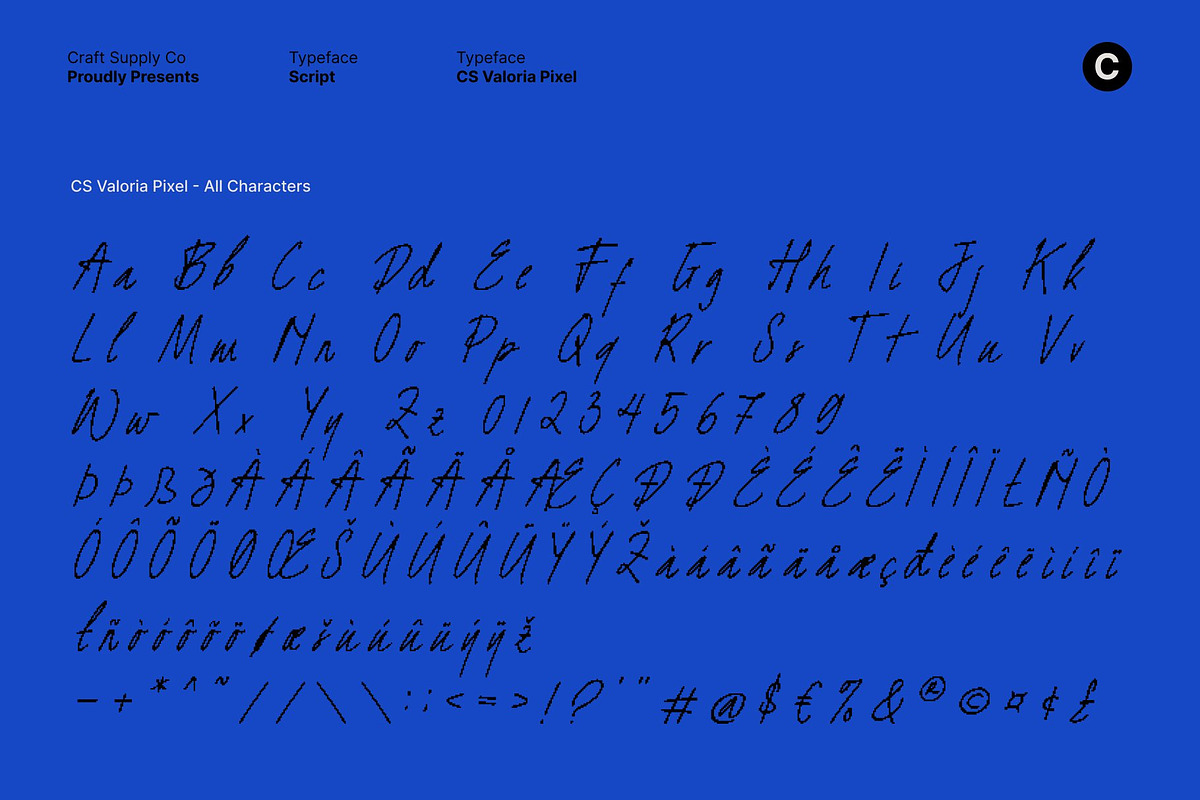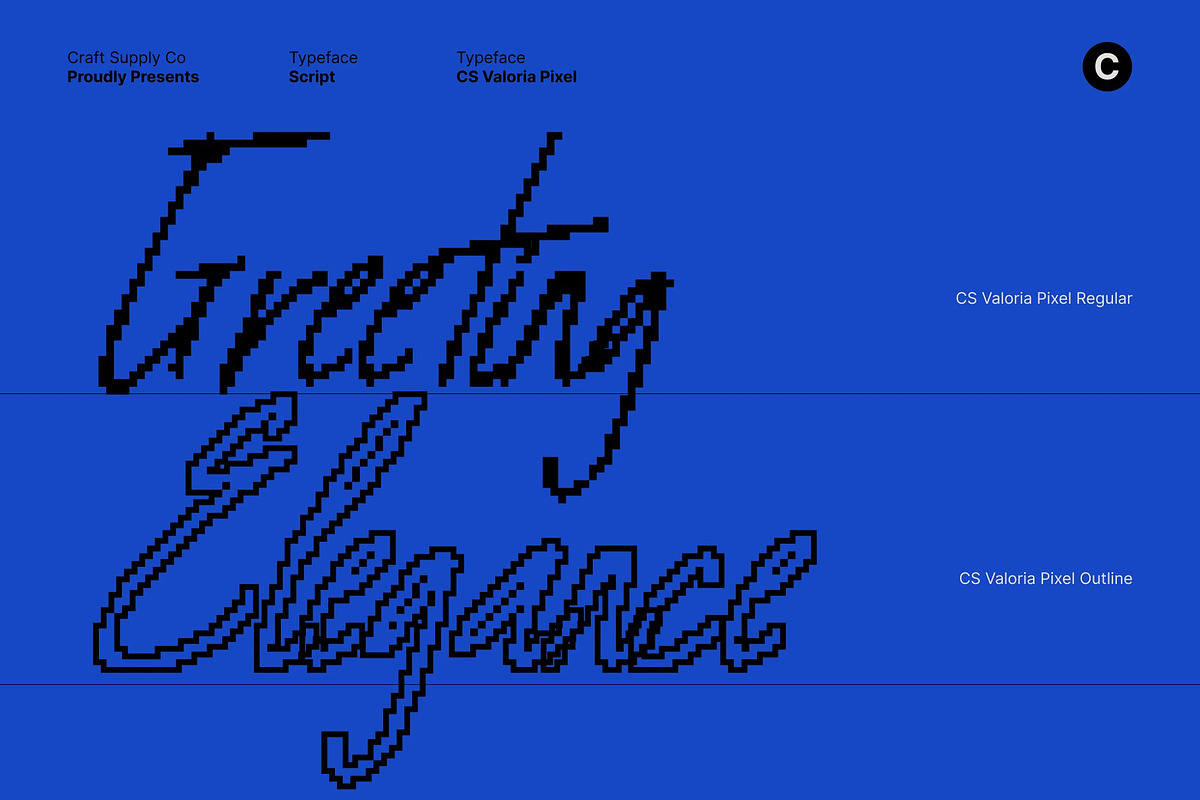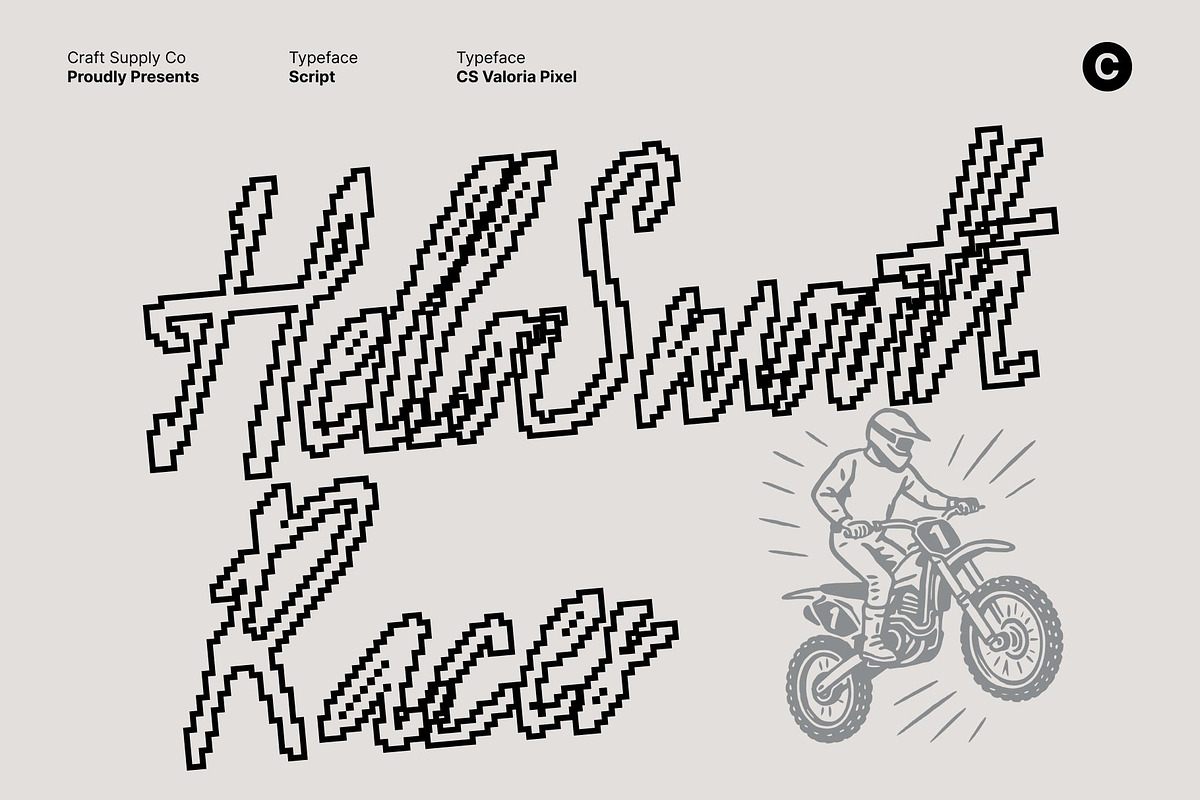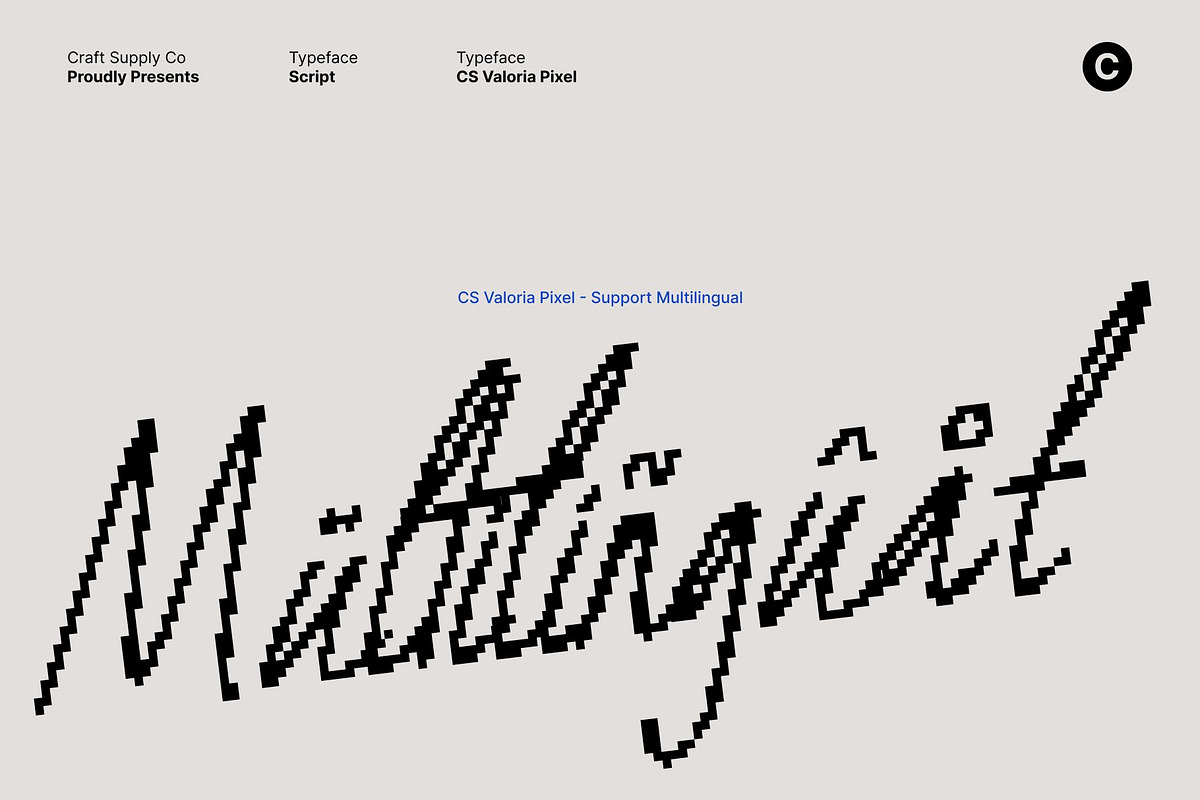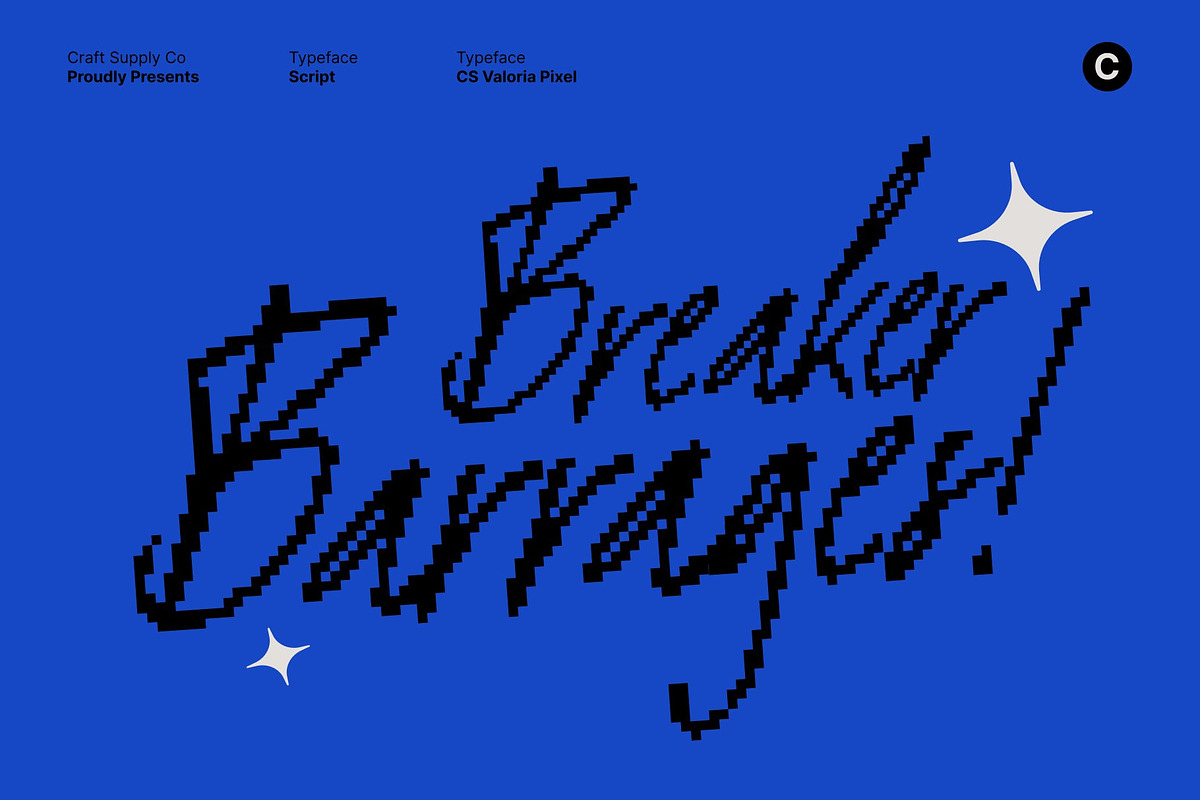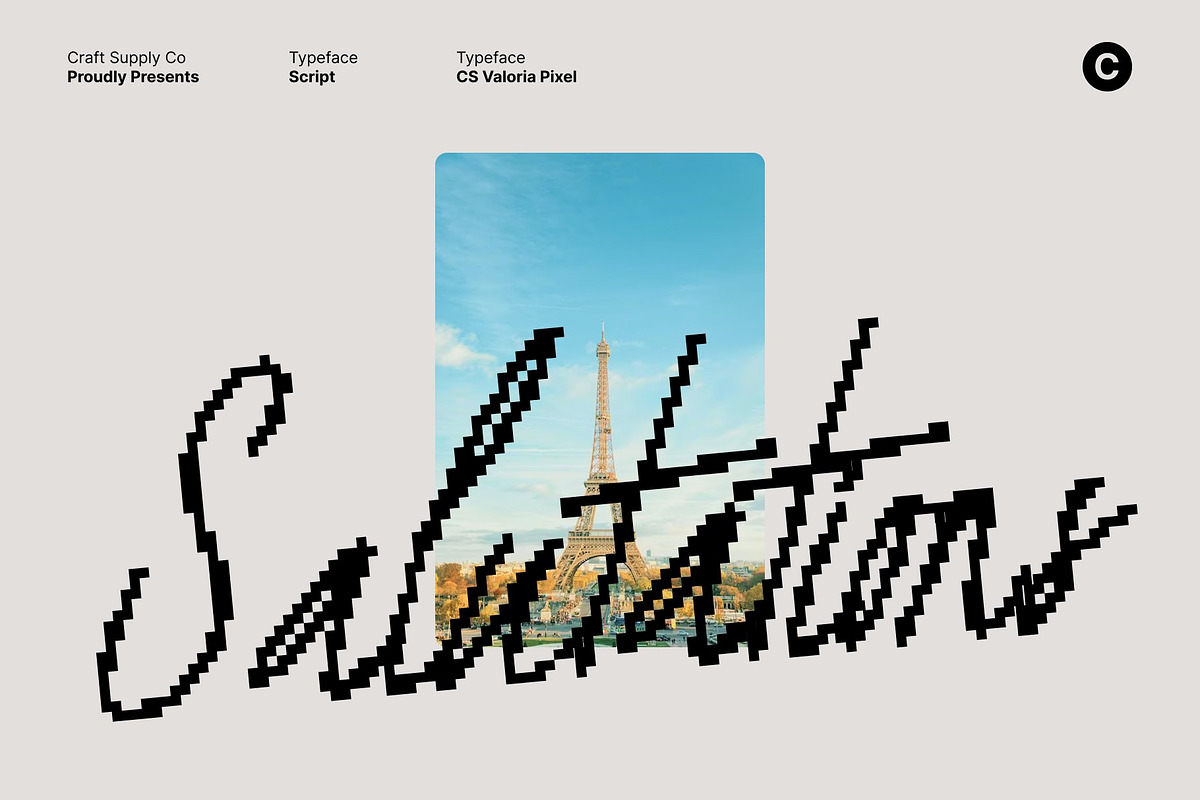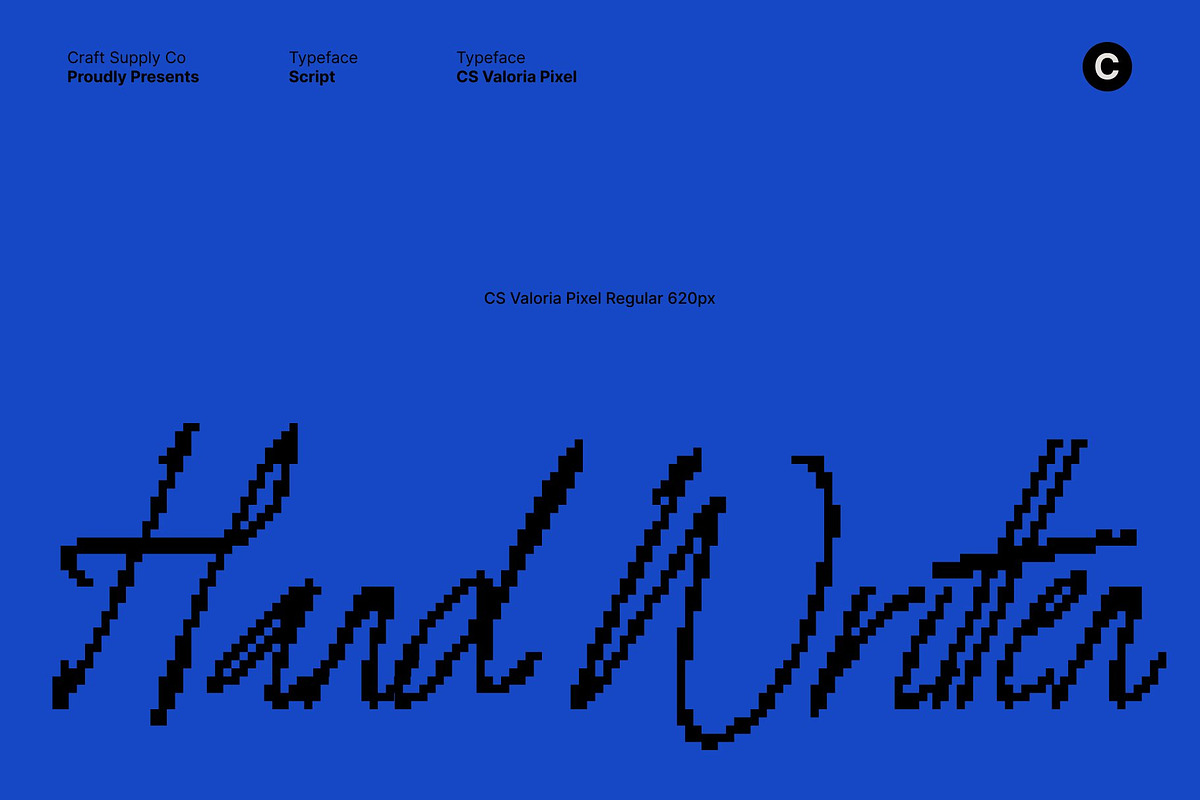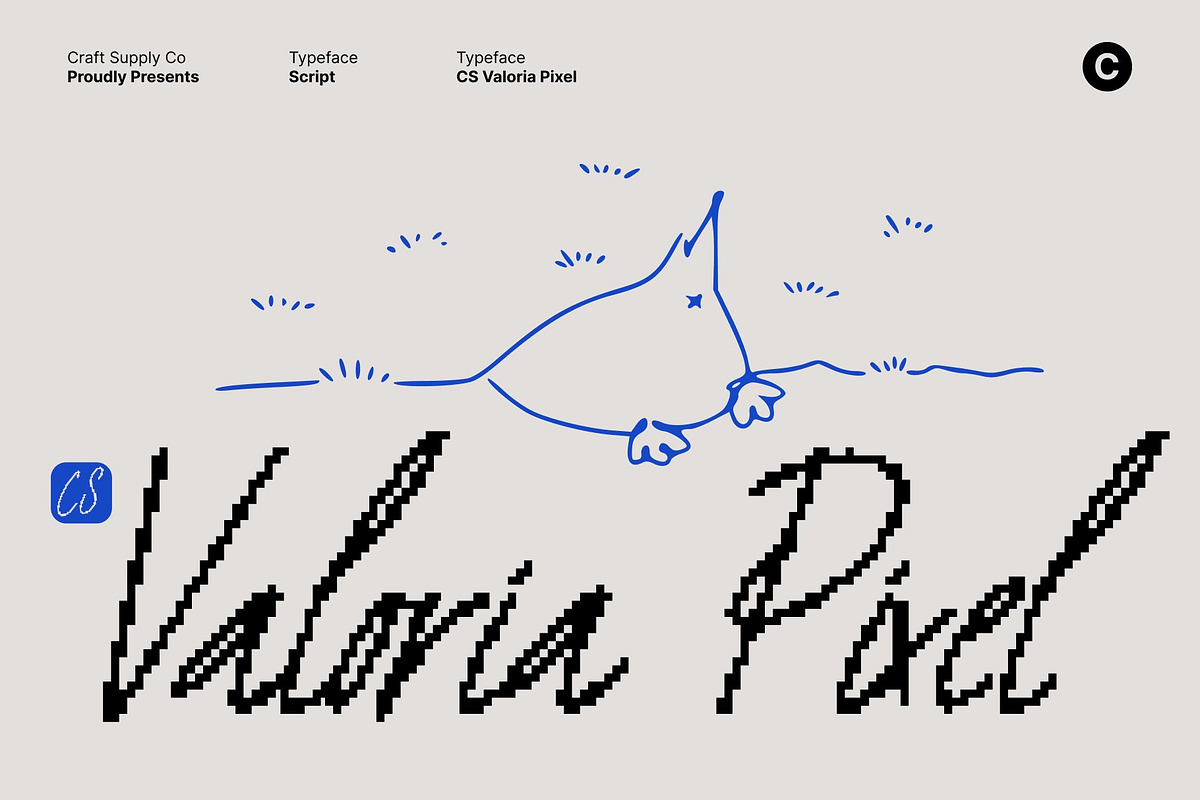
CS Valoria Pixel
CS Valoria Pixel – Soft Handwritten Expression with Authentic Warmth
Handwritten Script with Natural Flow and Pixel Accent This is a soft and expressive handwritten script font that captures the charm of natural pen strokes, enhanced with a delicate pixel-inspired nuance. Inspired by real handwriting, it delivers warmth and sincerity while introducing a subtle digital crispness that makes it unique. The combination of organic flow and gentle pixel detail creates a script style that feels both heartfelt and visually distinctive.
Organic Strokes with Expressive Digital Detail Each letterform features smooth connections and natural variations in stroke weight, mimicking the rhythm of authentic handwriting. The refined pixel accents add light texture and structure without interrupting the fluid movement. This balance preserves its human touch while giving it a fresh, modern personality suitable for both print and digital media.
Warm, Personal, and Nostalgically Modern This font brings emotional depth to typography. Its soft curves and flowing baseline create an intimate tone, while the pixel elements introduce a subtle nostalgic-digital charm. The result is a font that feels approachable, expressive, and gently contemporary perfect for storytelling with character.
Perfect for Branding, Quotes, and Creative Projects Ideal for personal branding, inspirational quotes, packaging, lifestyle visuals, and social media graphics, this font enhances designs that value warmth and authenticity. This font blends handwritten beauty with modern pixel flair, making every message feel personal, memorable, and creatively unique.
- CS Valoria Pixel Regular
- CS Valoria Pixel Outline